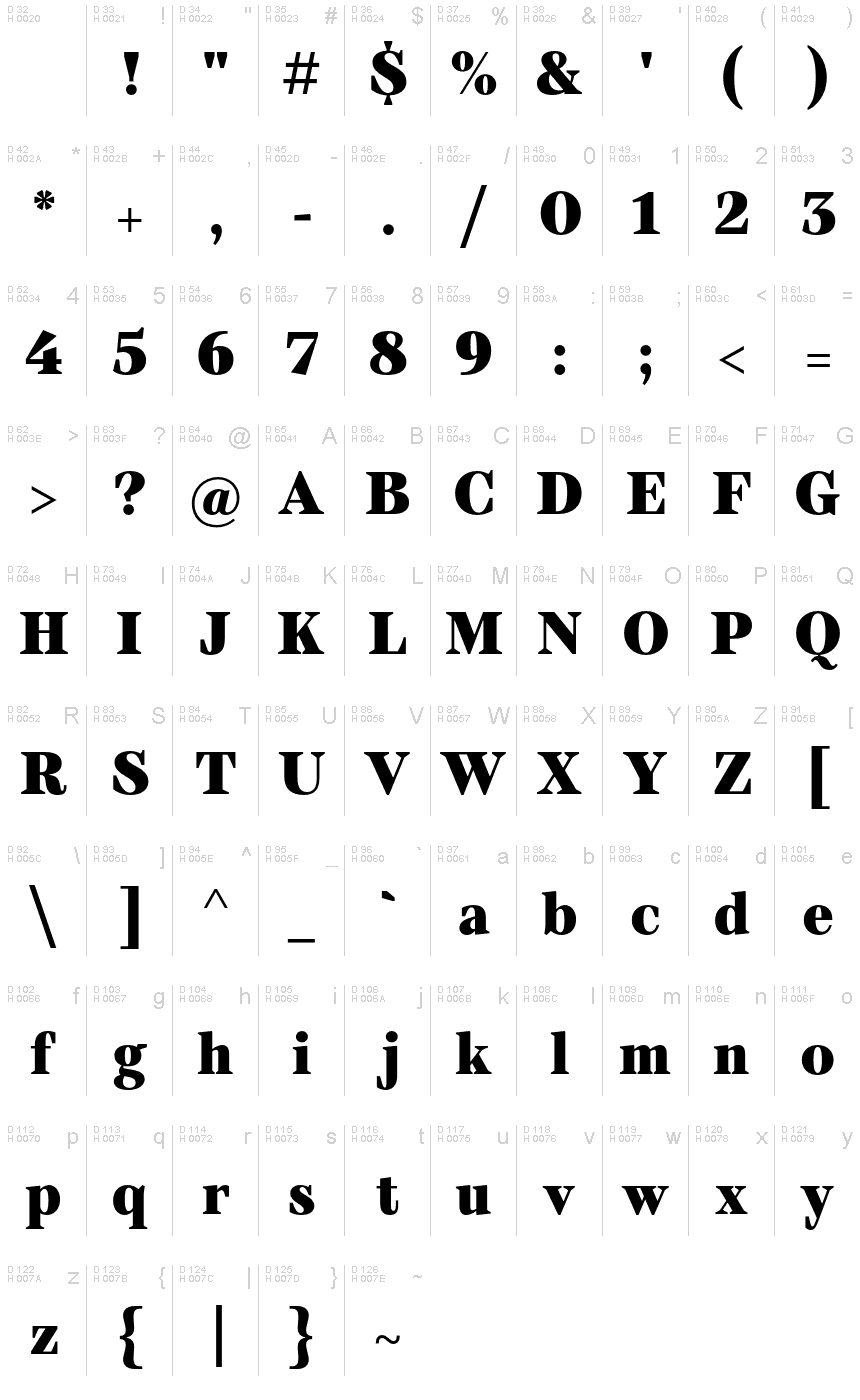
TT Barrels Trl Black
TT Barrels Black is a stunning ultra-bold serif font that commands attention. Created by the TypeType Foundry, this font family is perfect for projects that demand a bold statement. Its clean lines and classic design make it ideal for editorial work, book covers, and branding materials. The TT Barrels Black typeface is versatile enough to use in both print and digital media, making it an excellent choice for website headers, social media graphics, and advertising campaigns. Whether you're looking to create a powerful visual impact or elevate your designs with a touch of elegance, TT Barrels Black is the perfect choice.